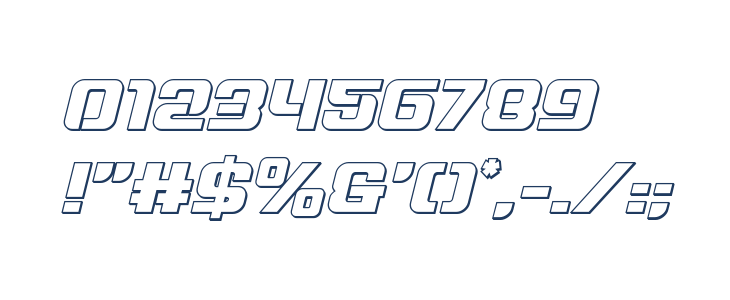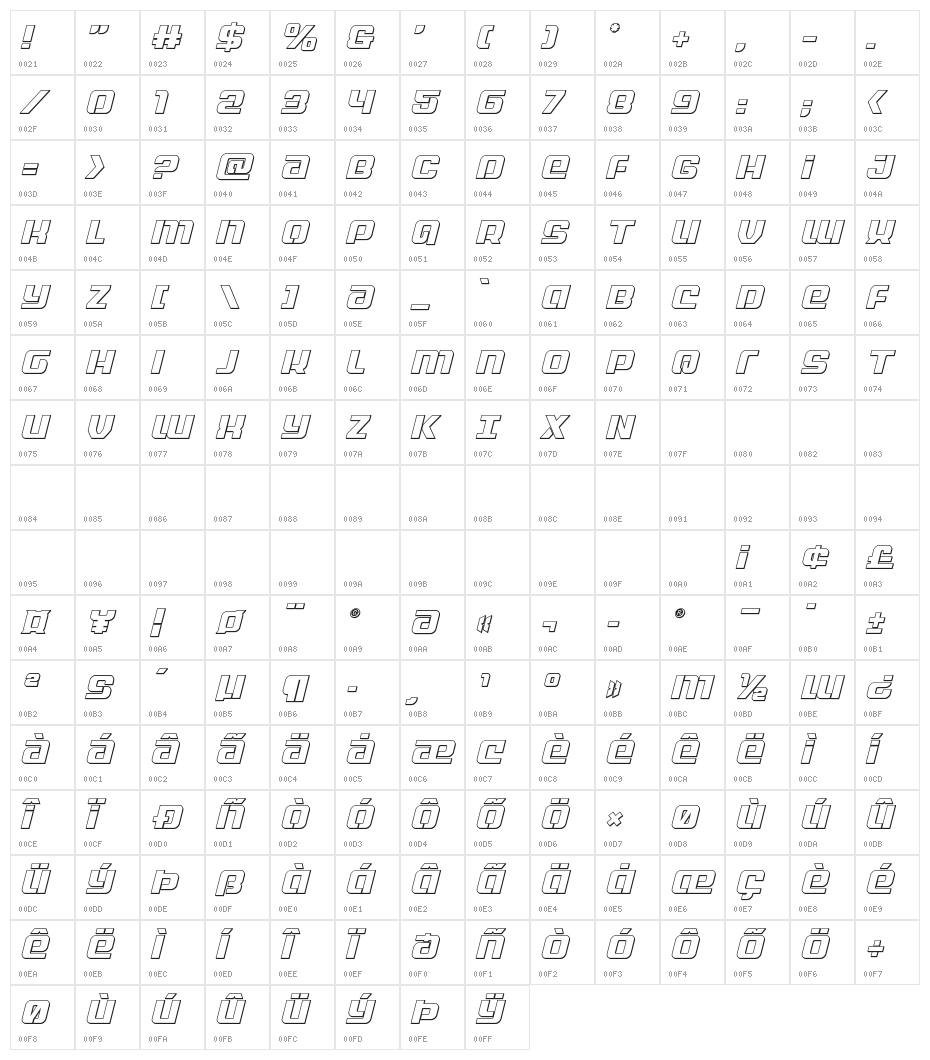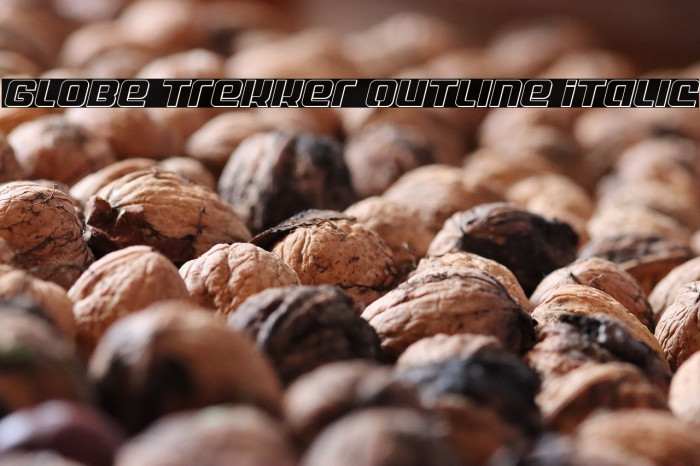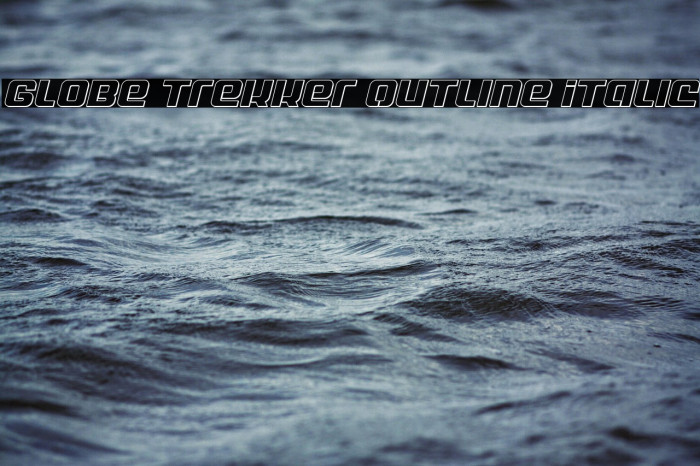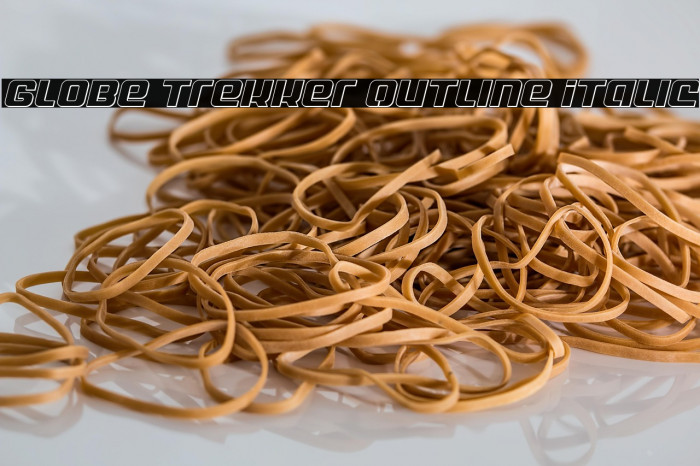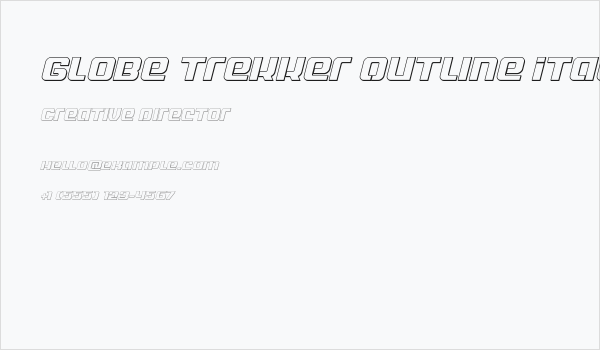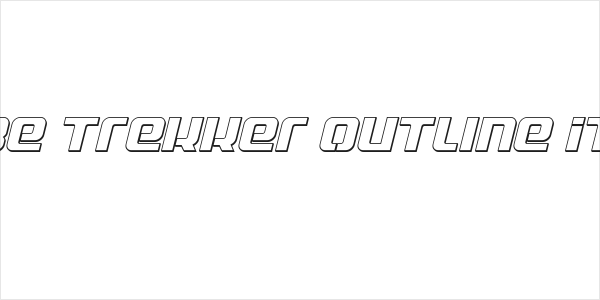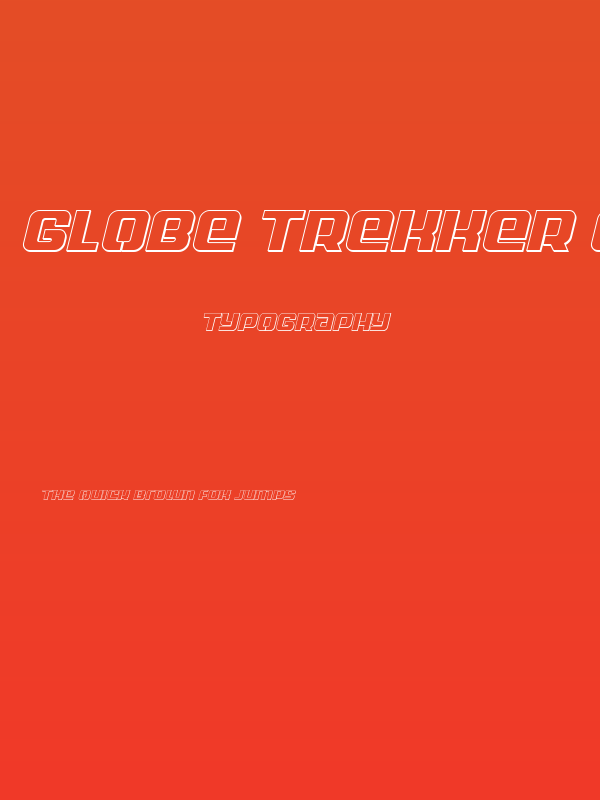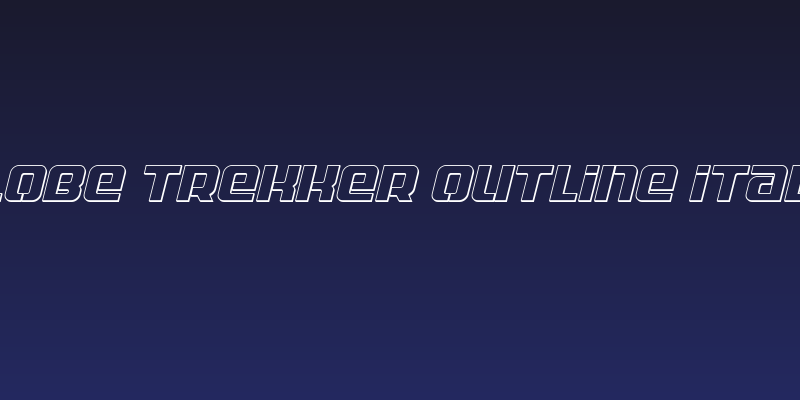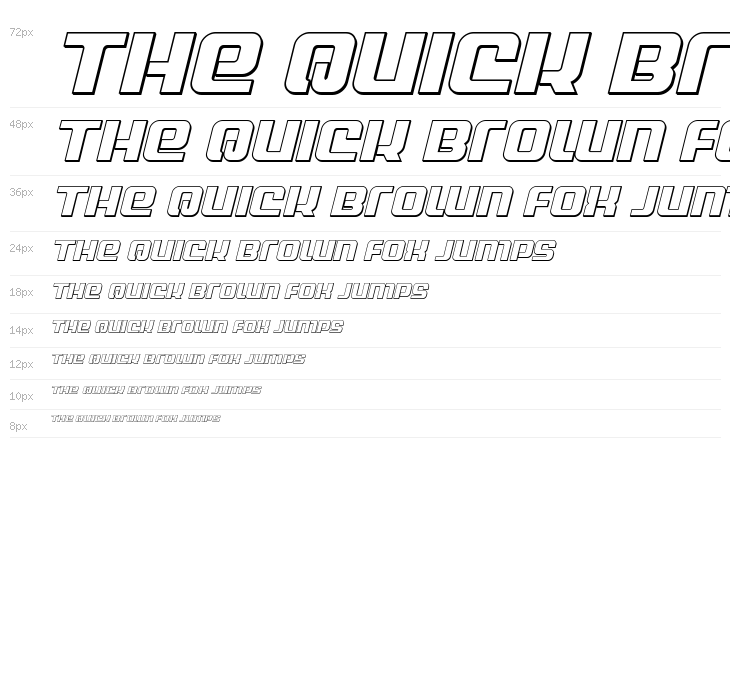
Globe Trekker Outline Italic Font
Globe Trekker Outline Italic Description
This font features a bold, outlined style with a distinct italic slant, giving it a dynamic and modern appearance. The characters are uppercase and lowercase alphabets, numerals, and a variety of special characters. Each letter is designed with a consistent outline thickness, creating a uniform look across the typeface. The geometric shapes and clean lines contribute to its futuristic and technical feel, making it suitable for projects that require a contemporary and edgy aesthetic. The spacing between characters is moderately tight, ensuring readability while maintaining its unique style.
| Proposed Projects | Ideal for branding, posters, headlines, and digital media that require a futuristic and technical look. |